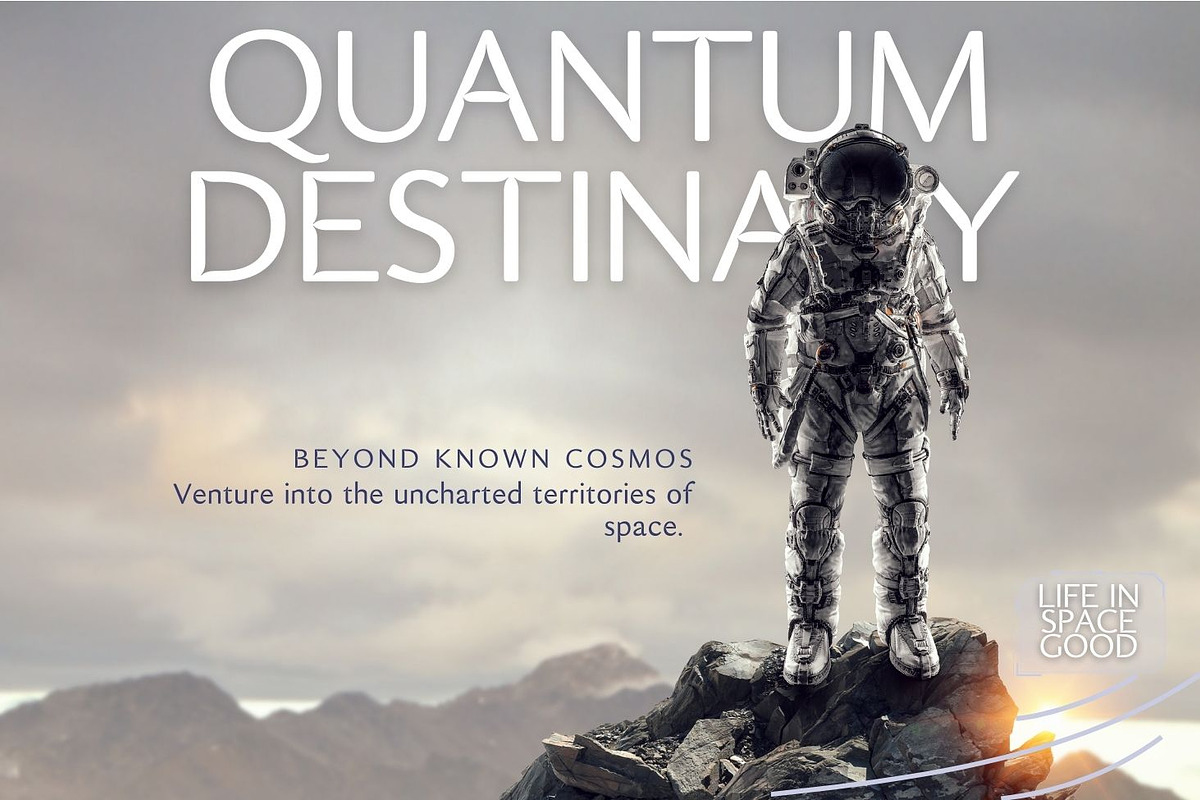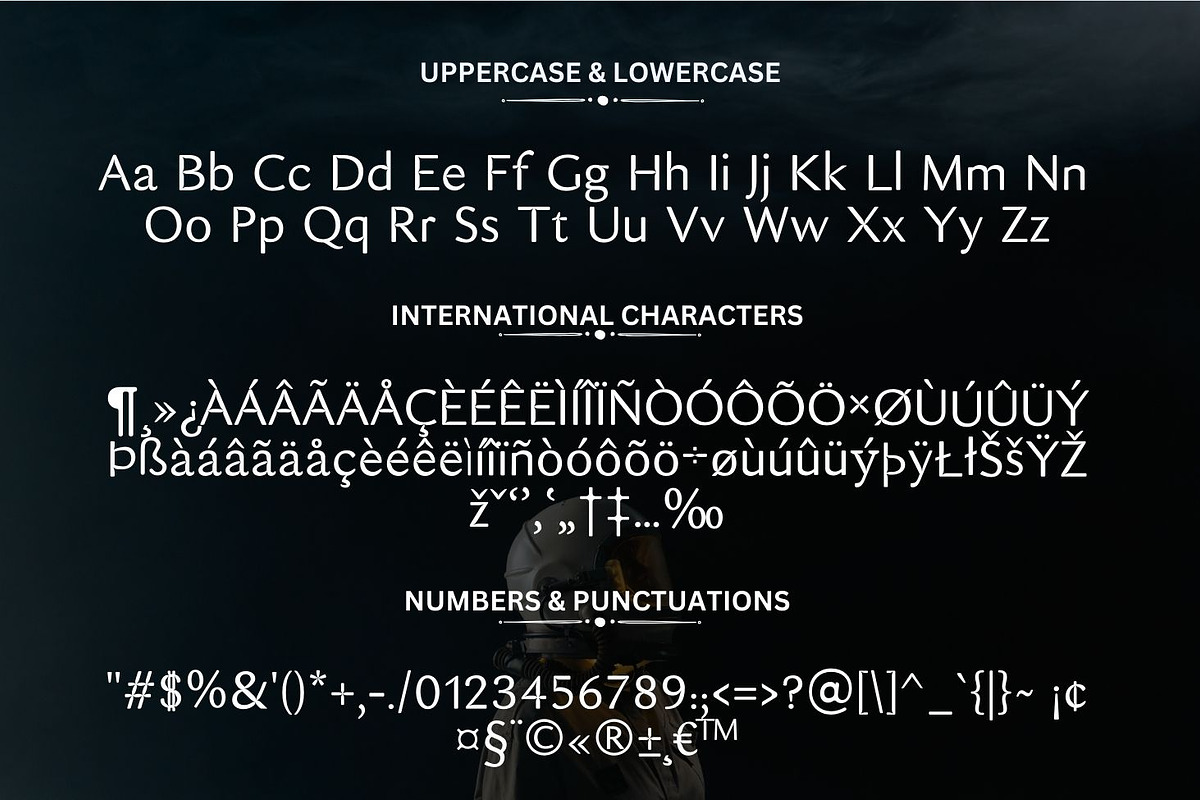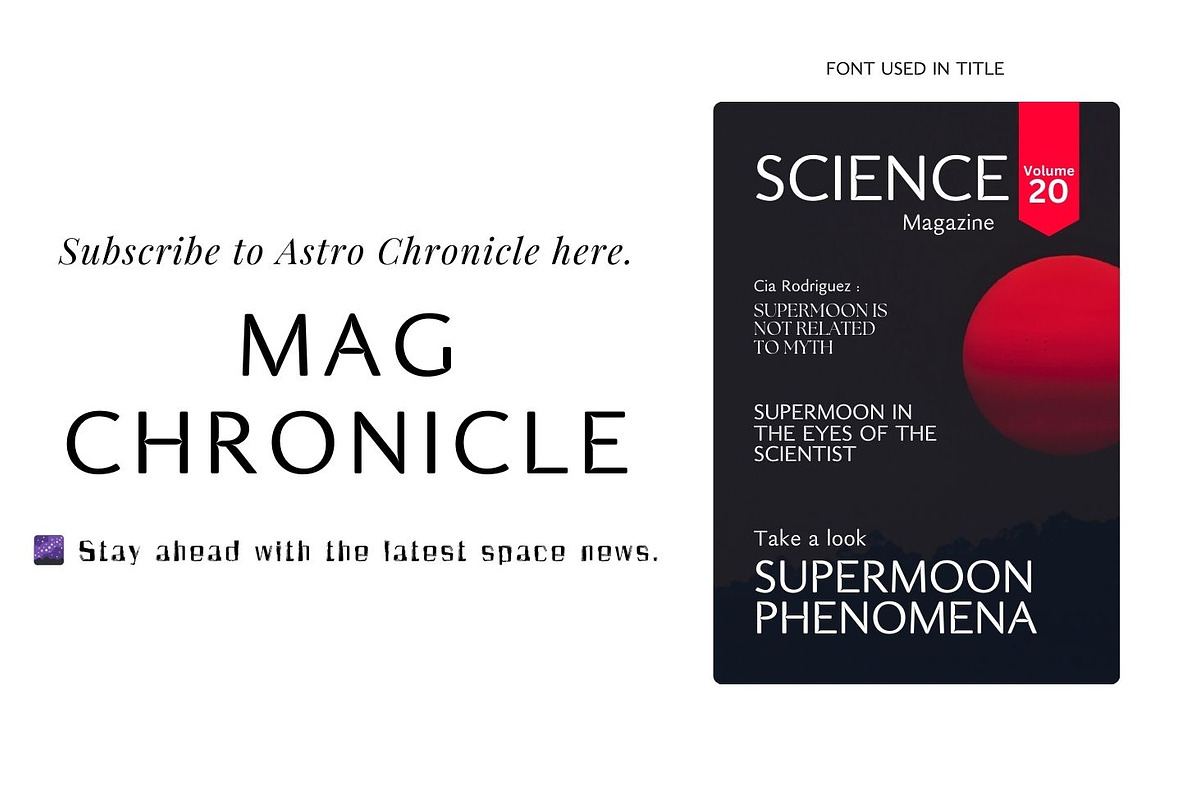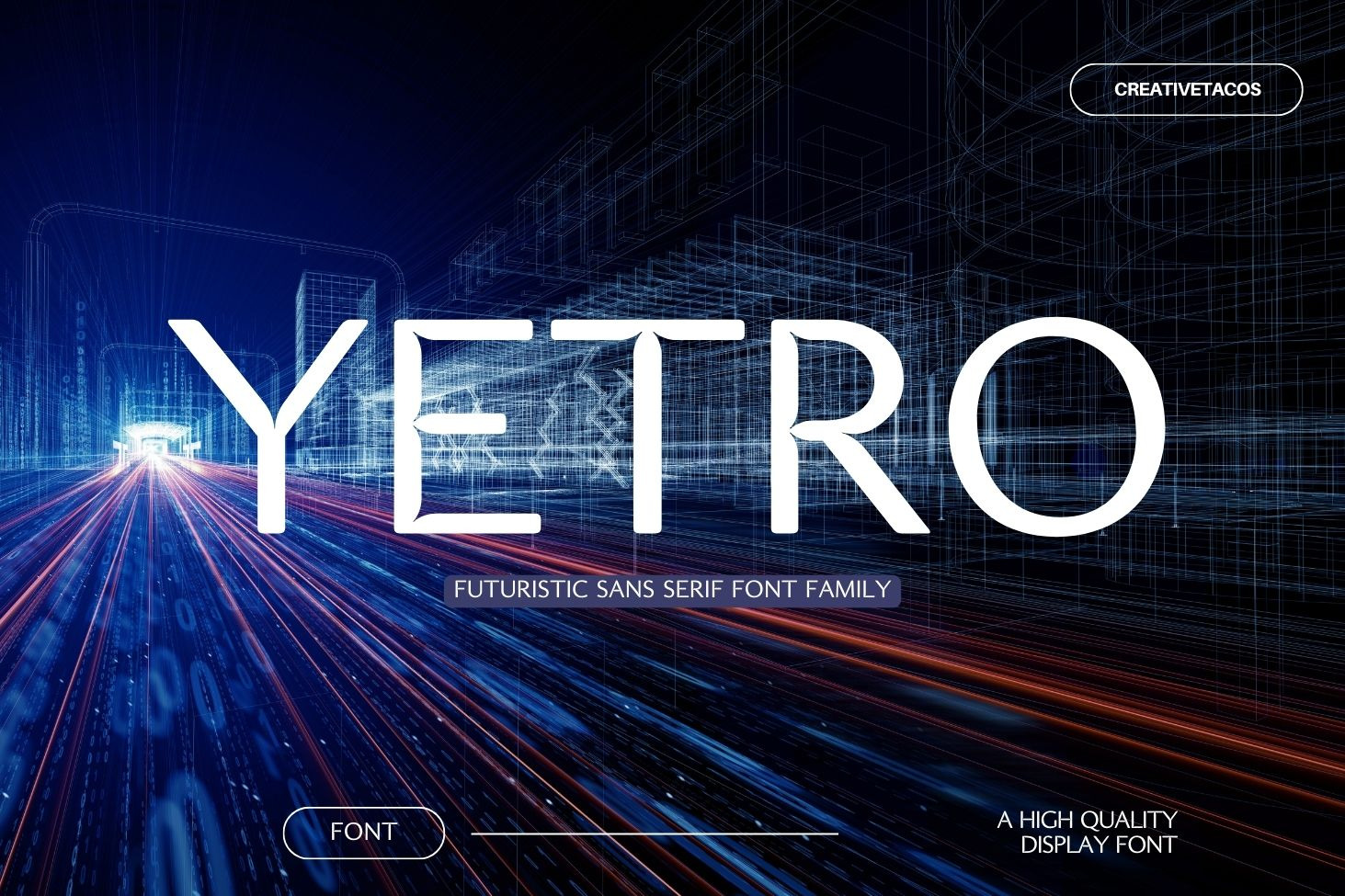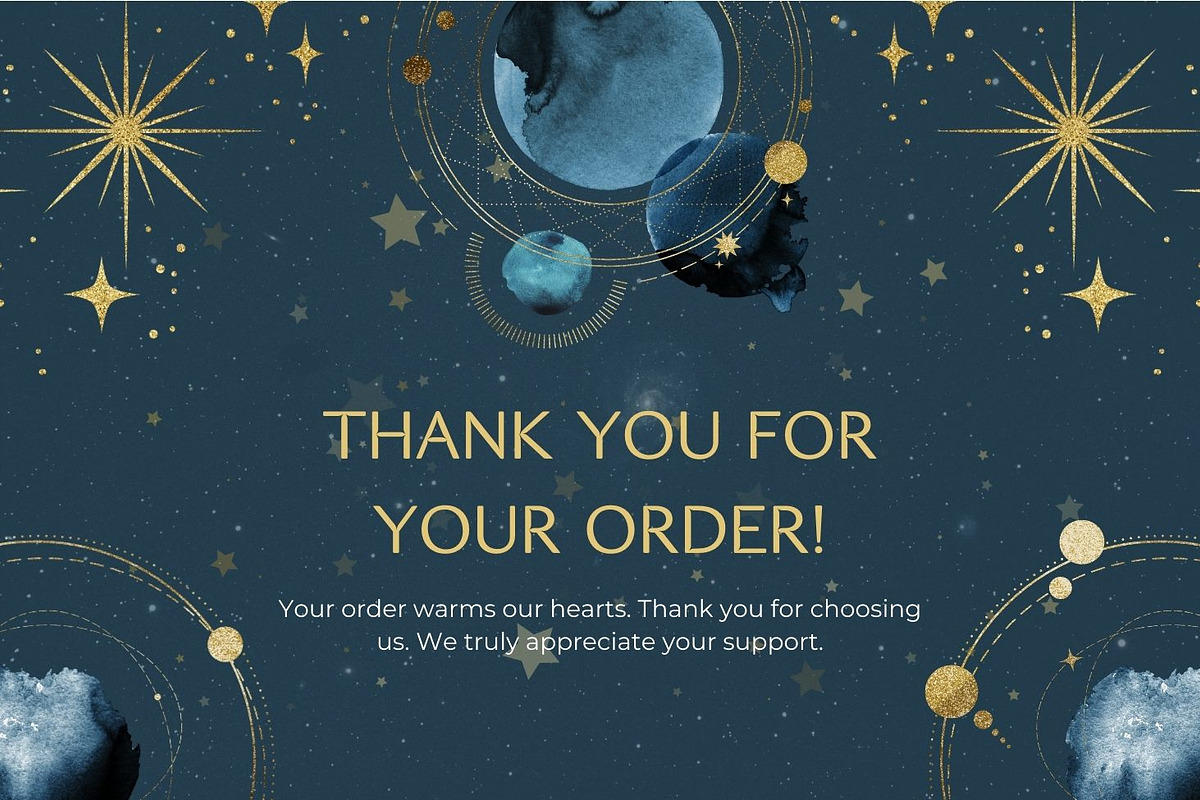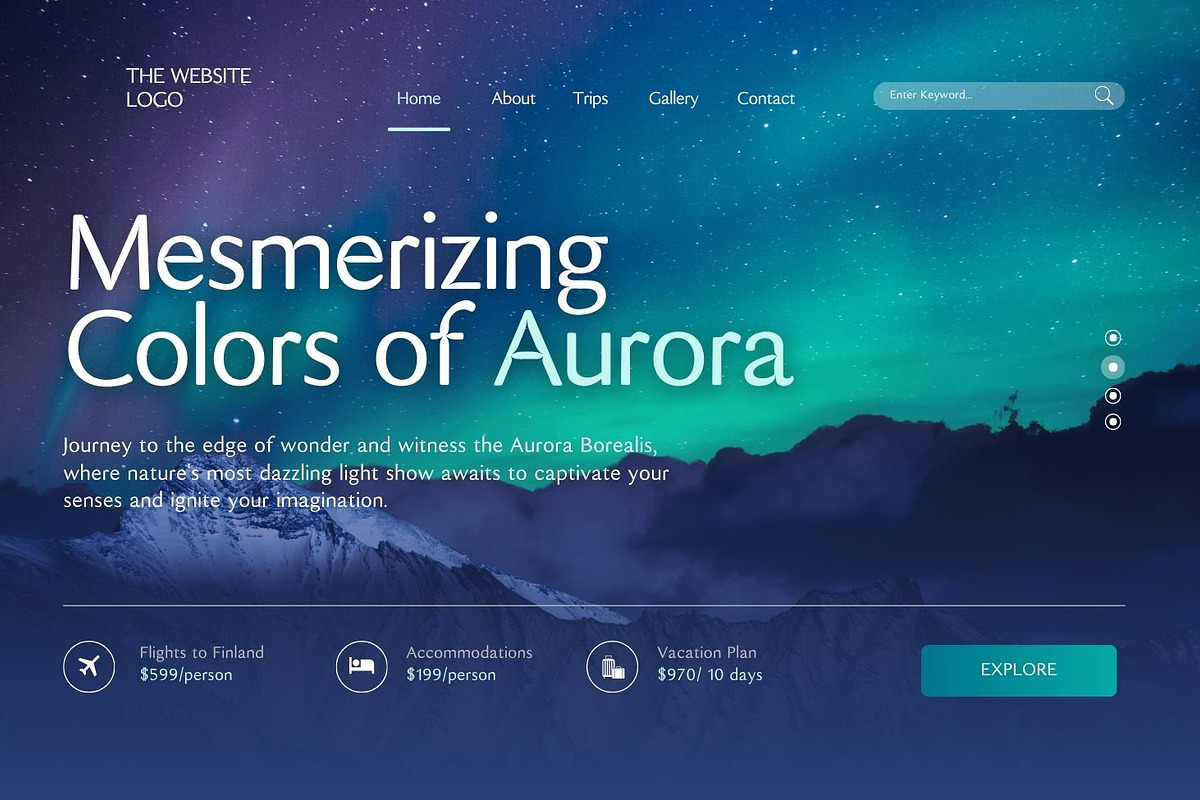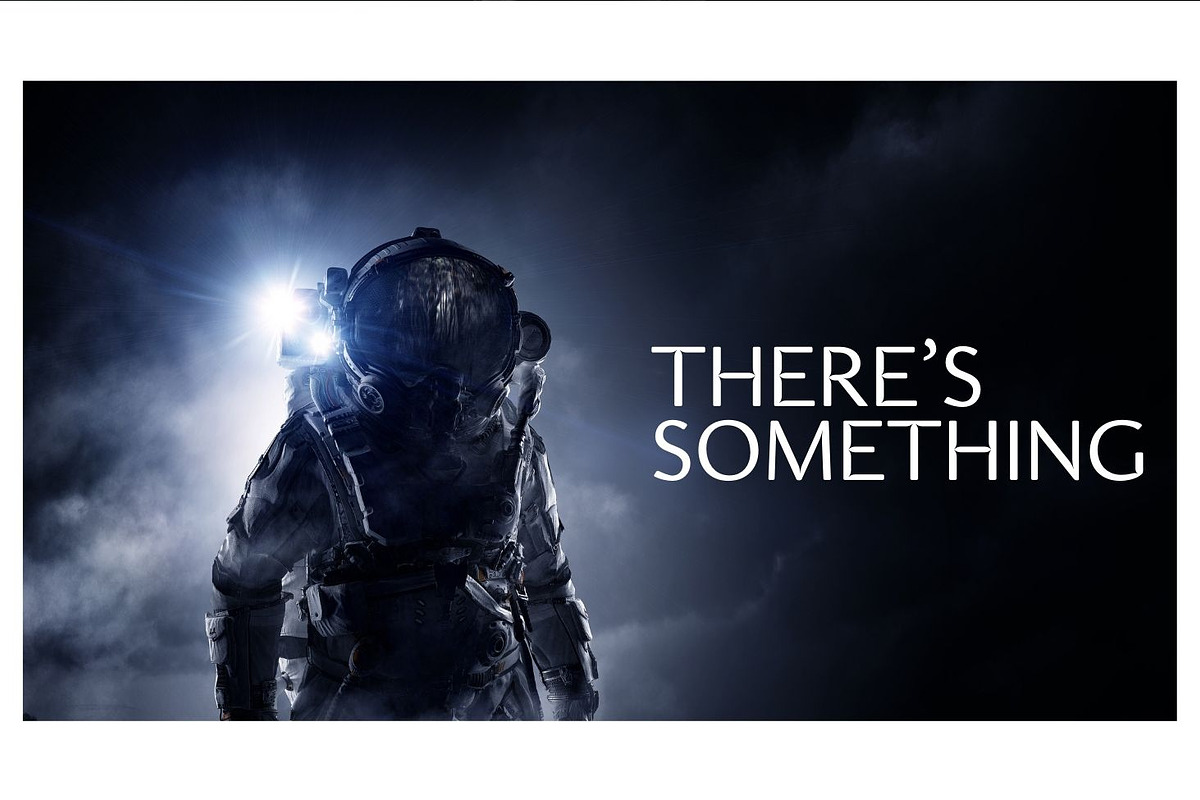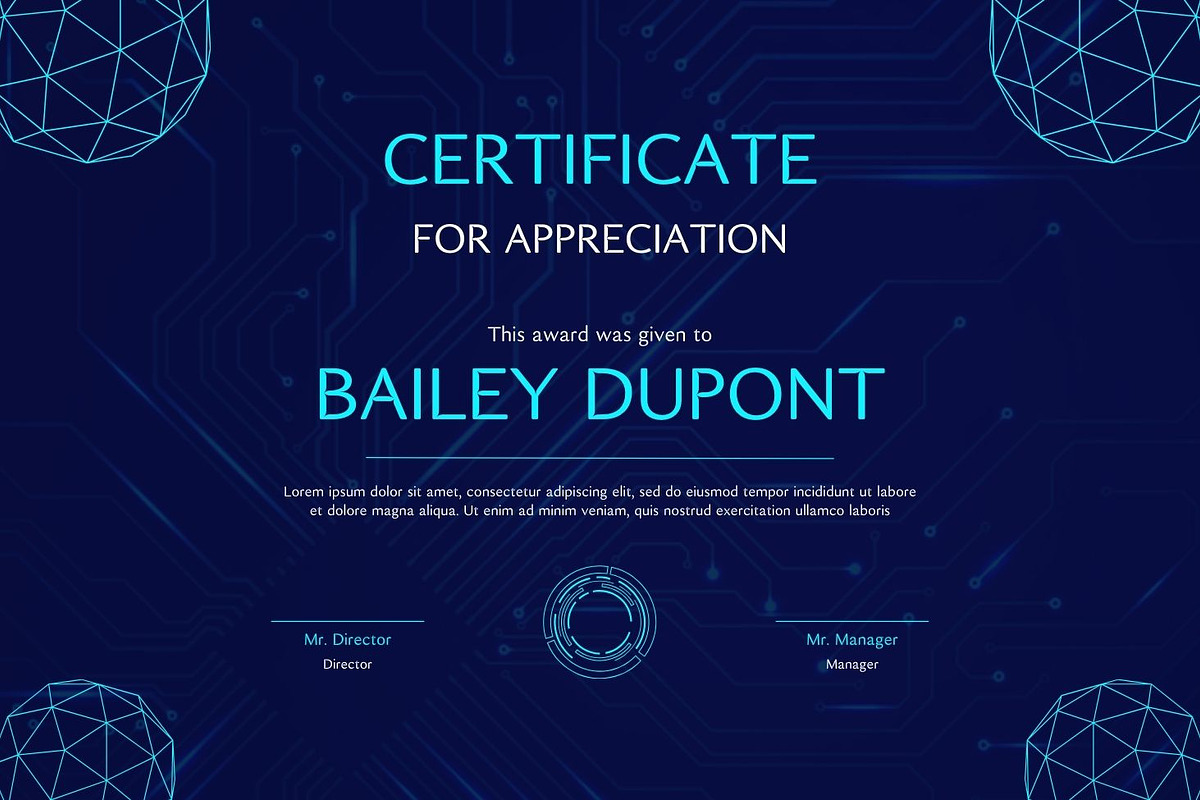
Yetro Futuristic Sans Serif Font
Yetro Futuristic Display Font is a bold and modern font that captures the essence of cutting-edge design. It’s perfect for projects that need a strong, futuristic look, whether you're designing logos, posters, or headlines. The font’s clean, sharp edges make it stand out, adding a sleek and sophisticated feel to any project.
- Uppercase and Lowercase Letters: Flexible for any type of design.
- International Characters: Supports a wide range of accented letters for different languages.
- Numbers and Punctuation: Includes essential marks like $, %, &, and @ for versatile use.
- Special Symbols: Offers extra symbols like ©, ®, €, and ¢ for creative and professional projects.
Yetro is a powerful display font, ideal for anyone looking to infuse a modern, futuristic style into their designs.